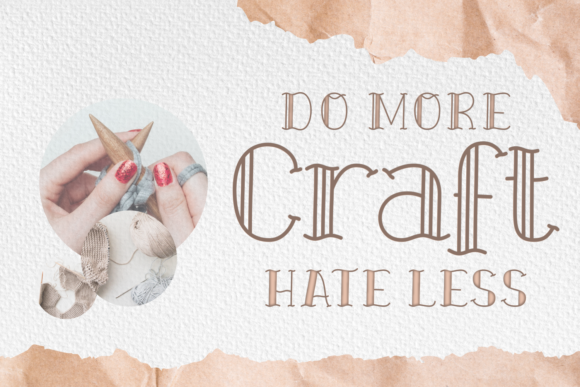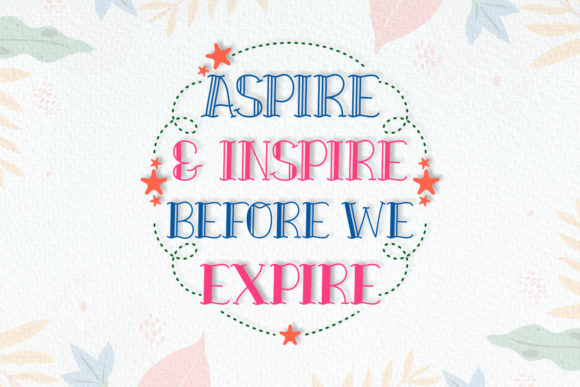
Introduction to Mulya Font Font
Fonts play a crucial role in design, and the Mulya Font font is a typeface that brings both character and versatility to any project. Whether you’re working on a branding project, a website, or a print design, the Mulya Font font offers a unique style that can elevate your work.
| 📌 Font Name | Mulya Font |
| 👤 Author | Situjuh |
Mulya is an elegant styled display font.
This original look will appeal to a wide range of crafty ideas, from letterheads and titles, to stationery .
Key Features of Mulya Font Font
Why Choose Mulya Font Font?
The Mulya Font font is more than just a typeface – it’s a design tool that helps you communicate your message with style and clarity. Its unique character set and versatile design make it suitable for a wide range of applications, from elegant invitations to bold headlines.
With its carefully crafted letterforms and balanced proportions, the Mulya Font font ensures readability and visual appeal across all mediums.
What makes Mulya Font font special?
The Mulya Font font stands out with its unique design, exceptional readability, and versatility across various design applications.